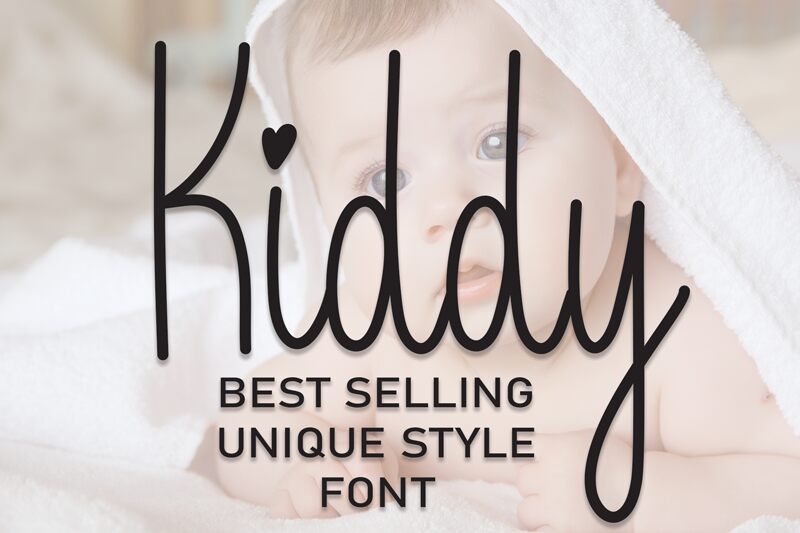
Kiddy
Kiddy, designed by Scratchones, captures the essence of whimsy and innocence with its handwritten style that instantly adds a personal touch to any creative endeavor. This font's extra-light weight and extra-condensed width create a delicate and airy feel, making it an excellent choice for projects that require a gentle, nuanced approach.
The playful yet refined strokes of Kiddy evoke the charm of childlike handwriting, offering an aesthetic that is both familiar and endearing. Its subtle elegance is perfect for invitations, branding materials, children's books, and any project aiming to convey warmth and approachability.
Kiddy's versatility extends beyond its visual appeal; the font’s design allows for easy readability while retaining its unique character. Embrace the delightful personality of Kiddy to infuse your designs with a sense of joy and lightheartedness.